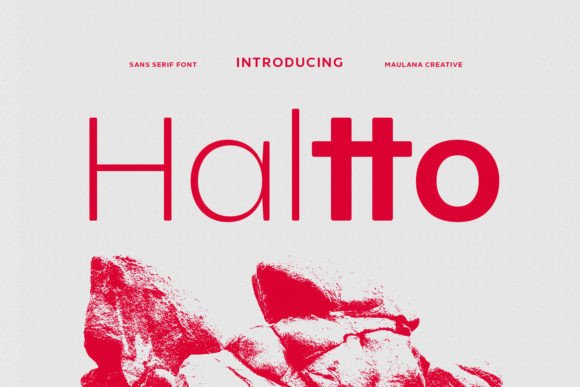
Are you looking for a font that can convey a sense of modern sophistication to your projects? Look no further than Haltto Font, created by Maulana Creative. This sleek and contemporary sans serif font is perfect for anyone who wants to elevate their digital signature.
Each character in Haltto is carefully crafted with clean and sharp lines to exude a sense of elegance and style. The font family is designed to be versatile and can be used in web design, branding, and editorial projects.
With Haltto, you can add a touch of modernity to any project, making it stand out from the rest. Whether you're creating a new website, designing a logo, or working on an editorial layout, Haltto is sure to capture attention and impress.